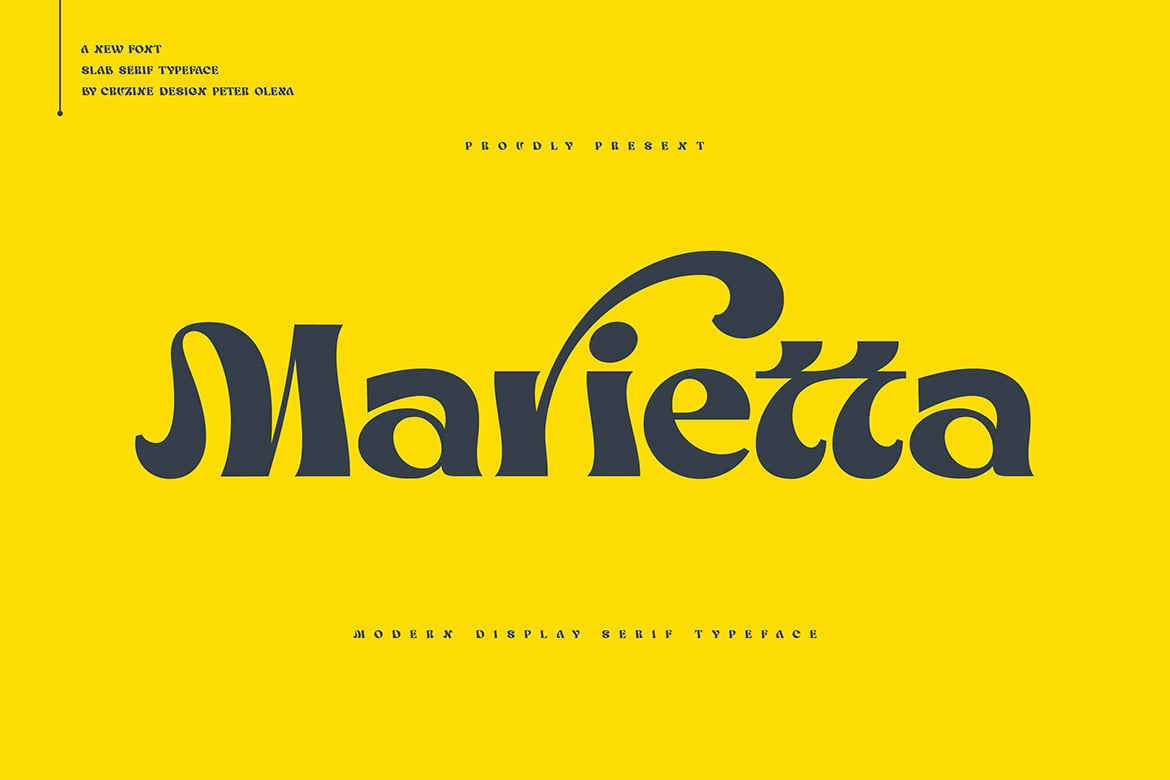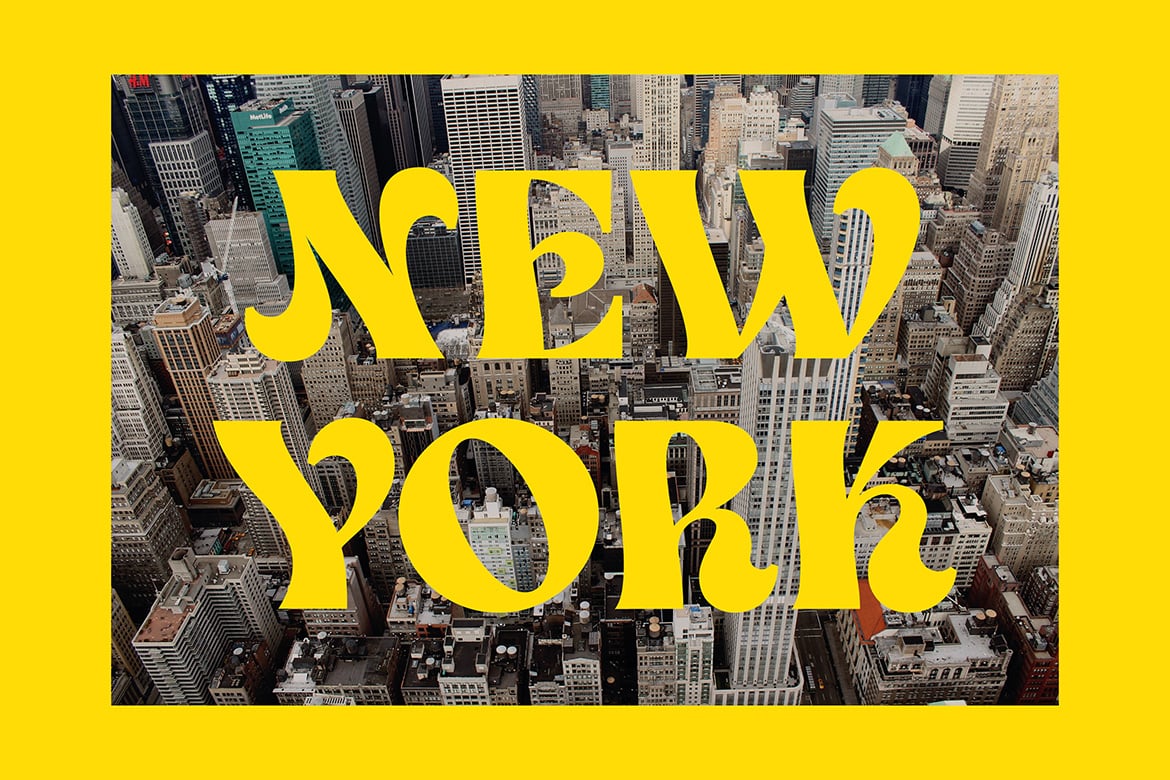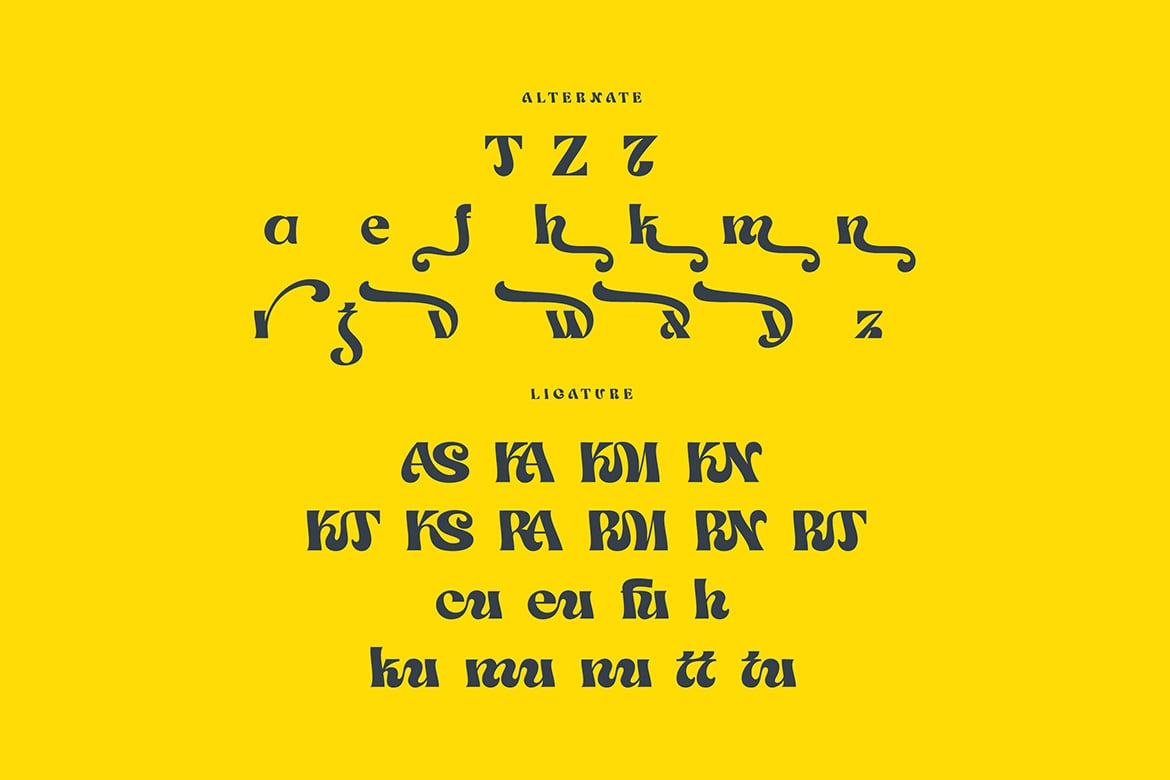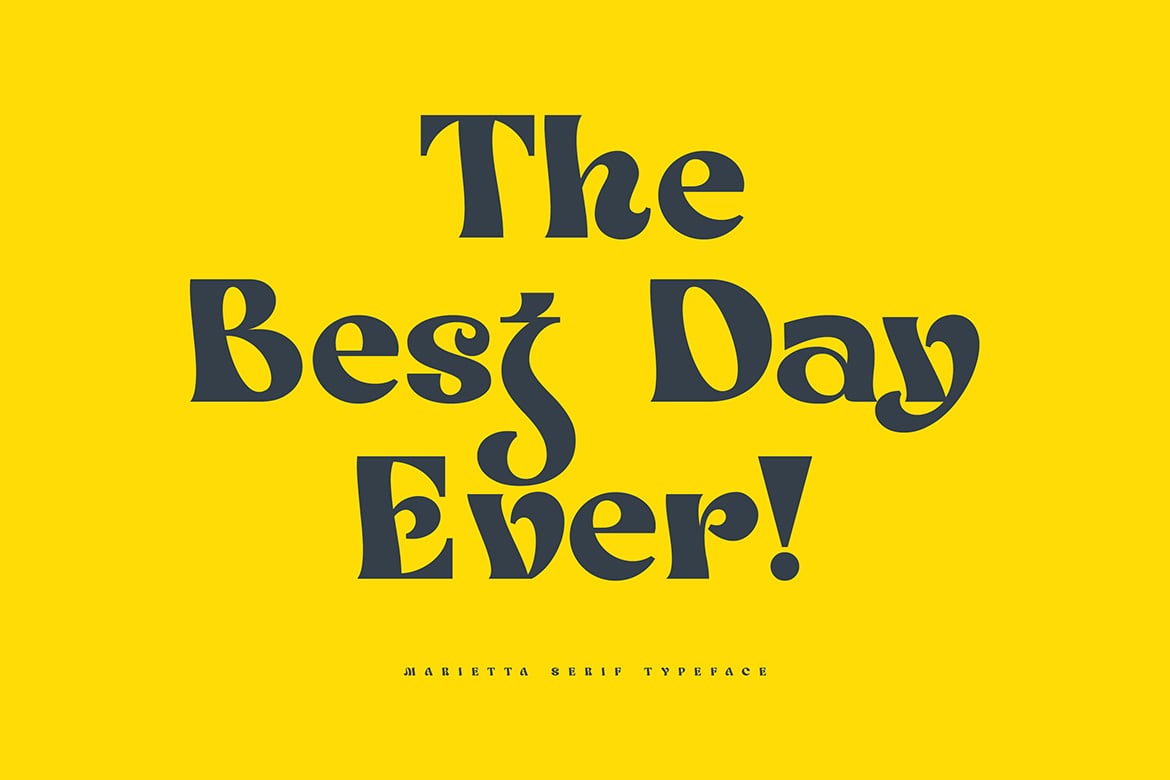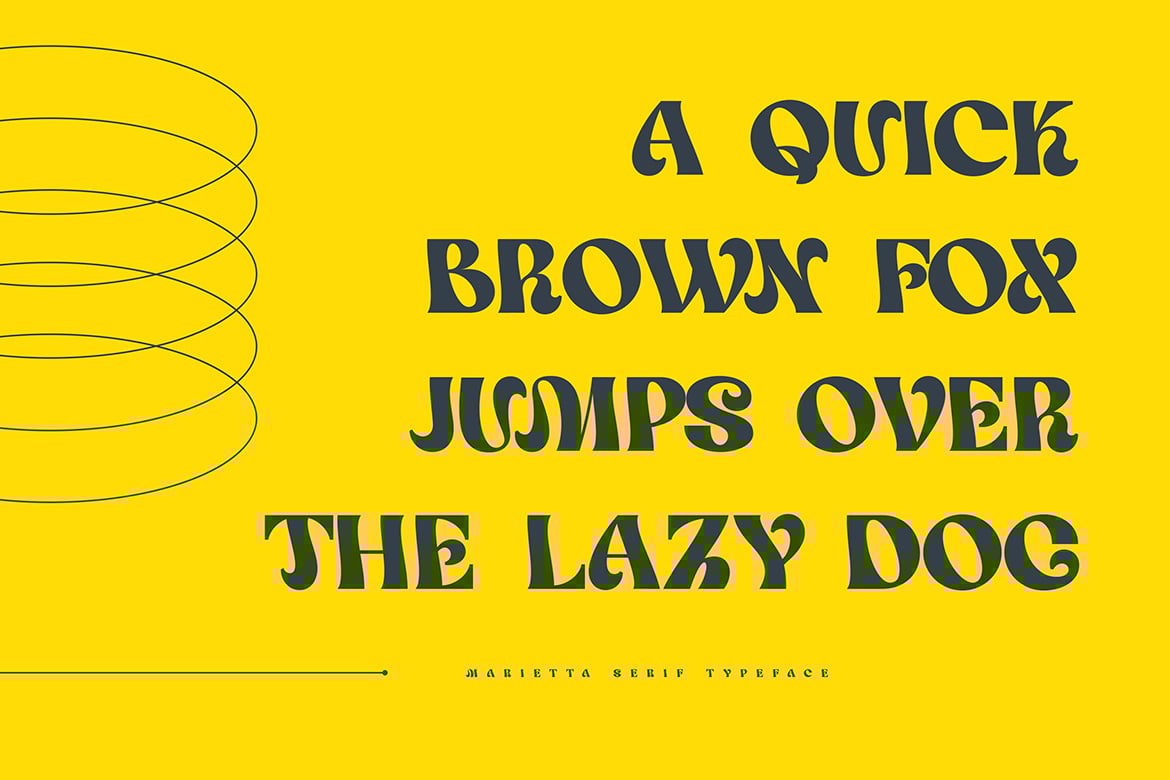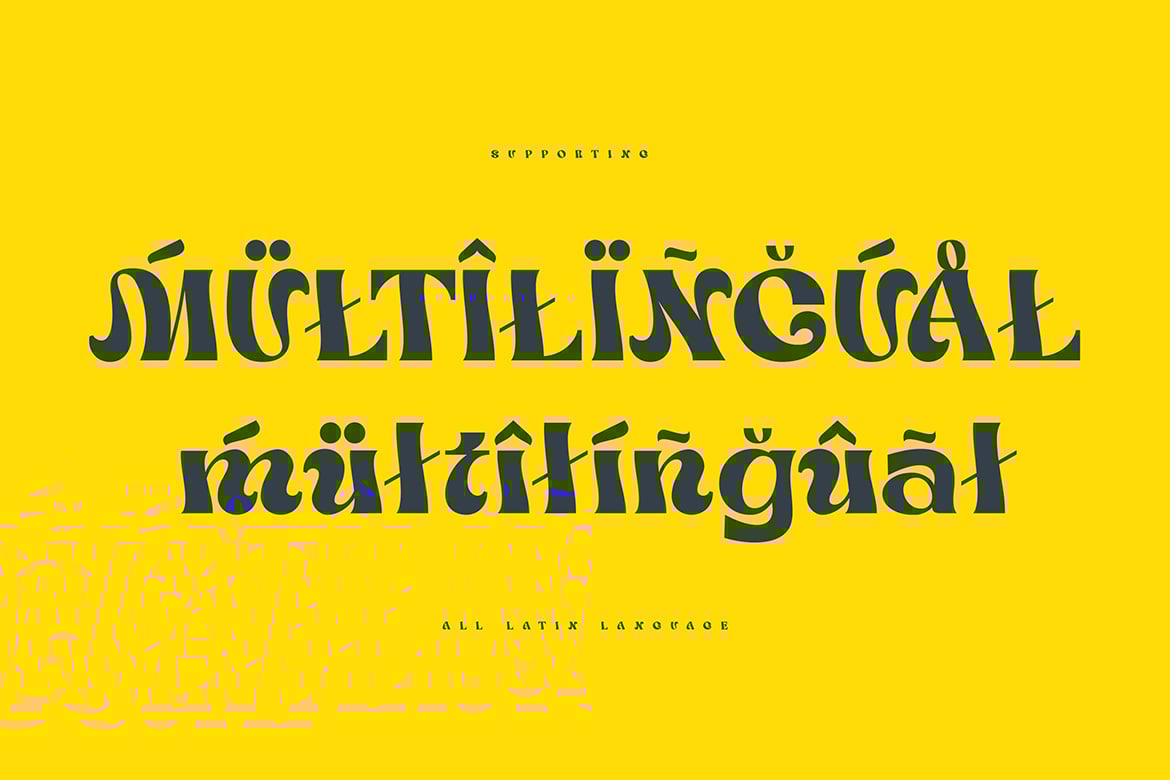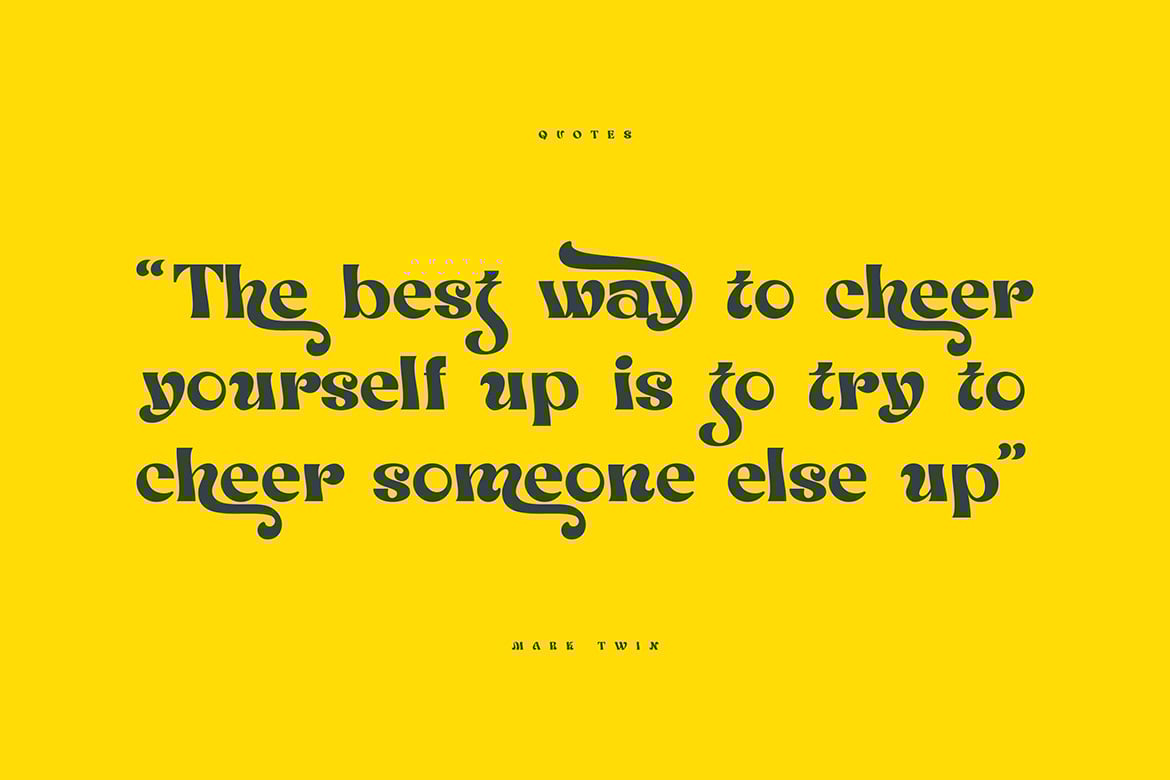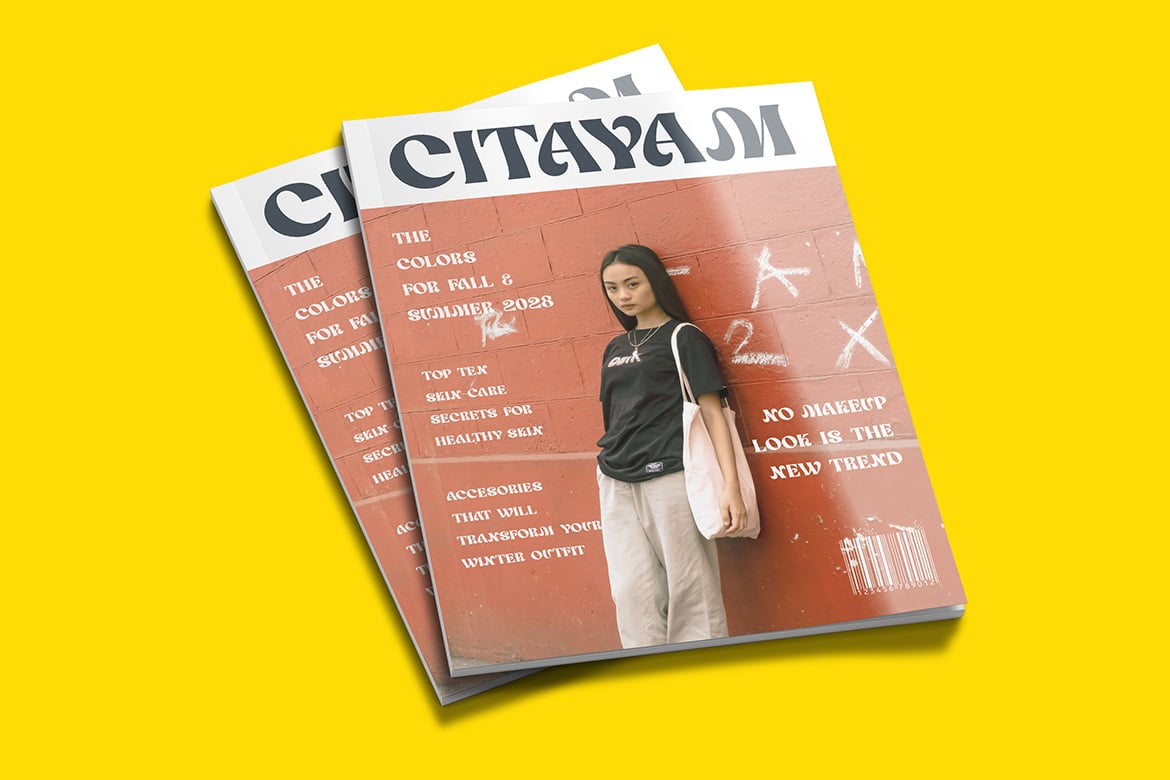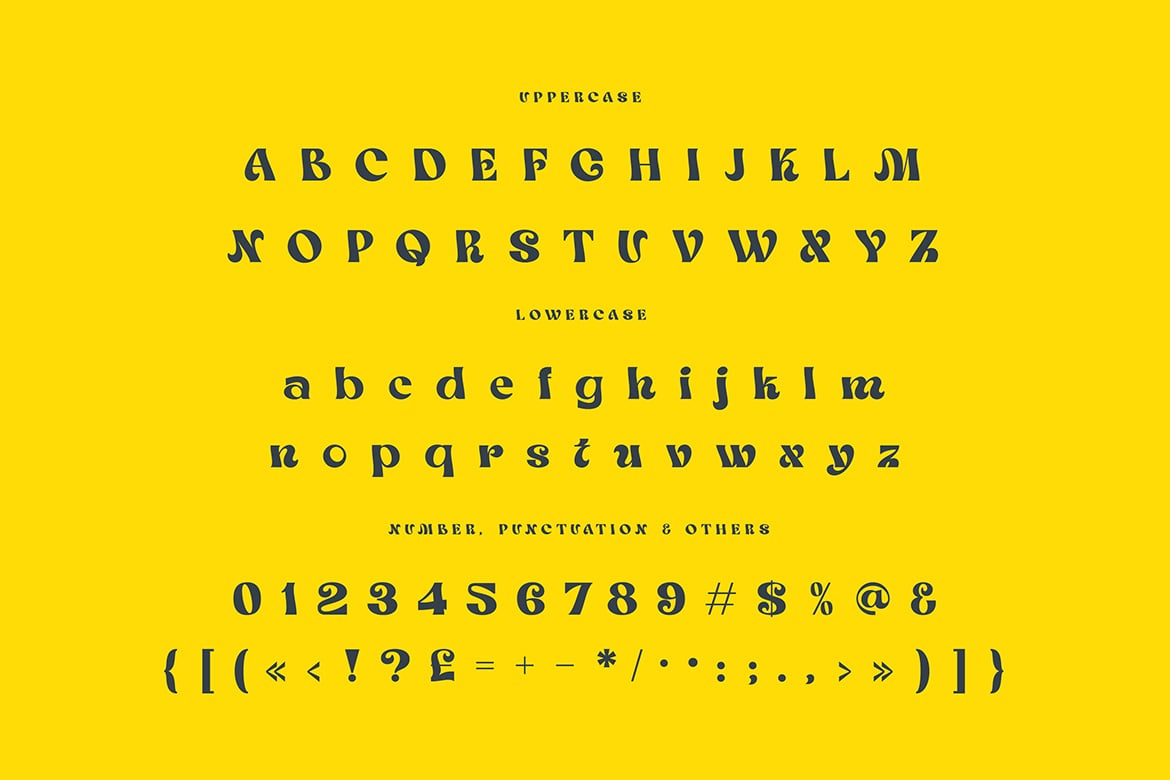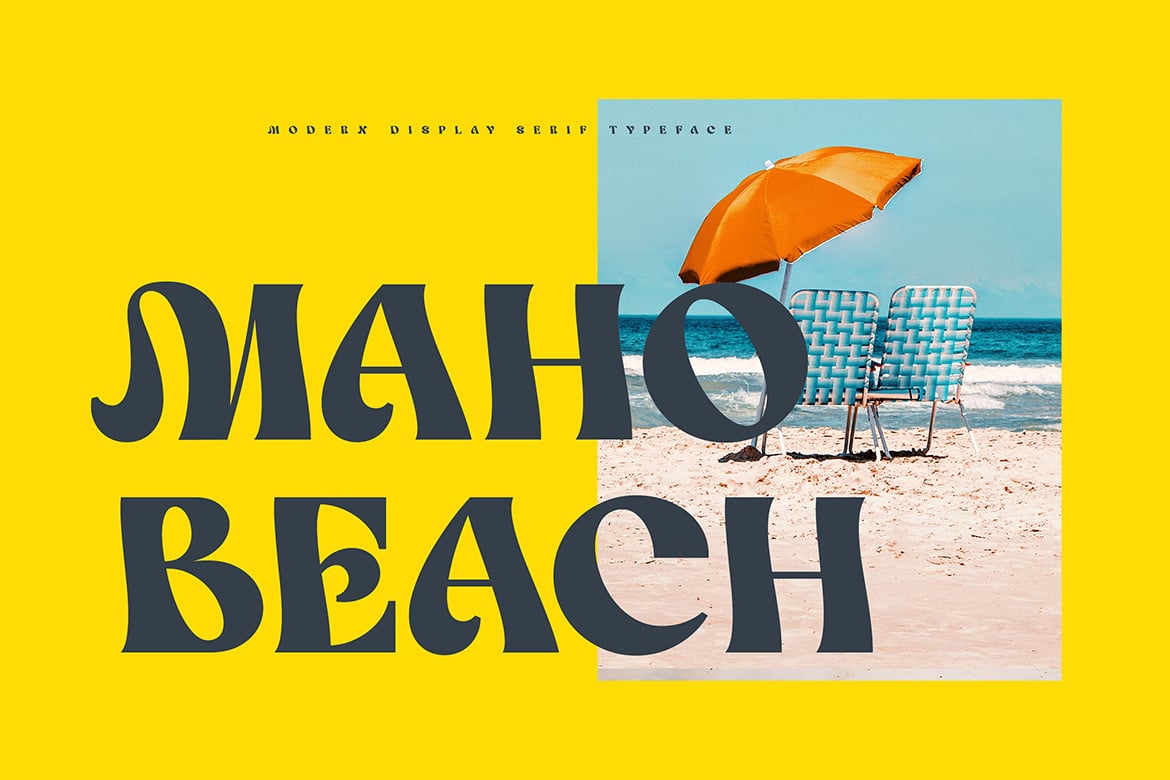
Marietta – Groovy Serif Font
Trendy, groovy, crazy & modern style serif font for your fancy projects. Elegant, artistic and groovy style on Marietta font will be great for any branding project. Lot of alternates and ligatures will help you to create unique and original logo design or website header! Enjoy π
- Lot of alternate characters
- Lot of ligatures
- Great for modern branding projects!